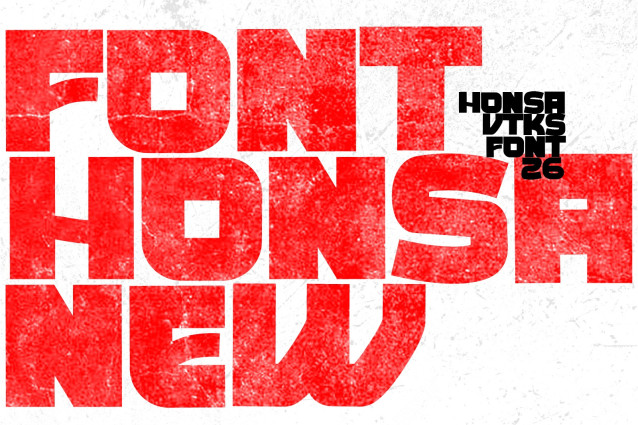
Vtks Honsa Font
Vtks Honsa Font is a simple and modern display font suitable for quotes, logos, headings, titles, and many more. Use it on any of your creative projects, and your designs will become outstanding!